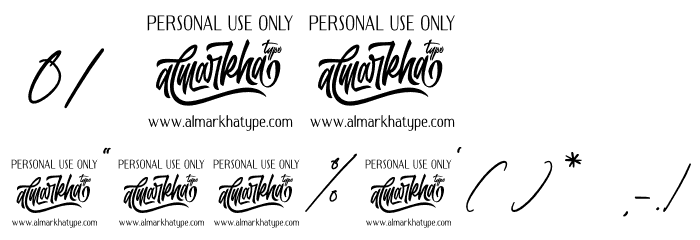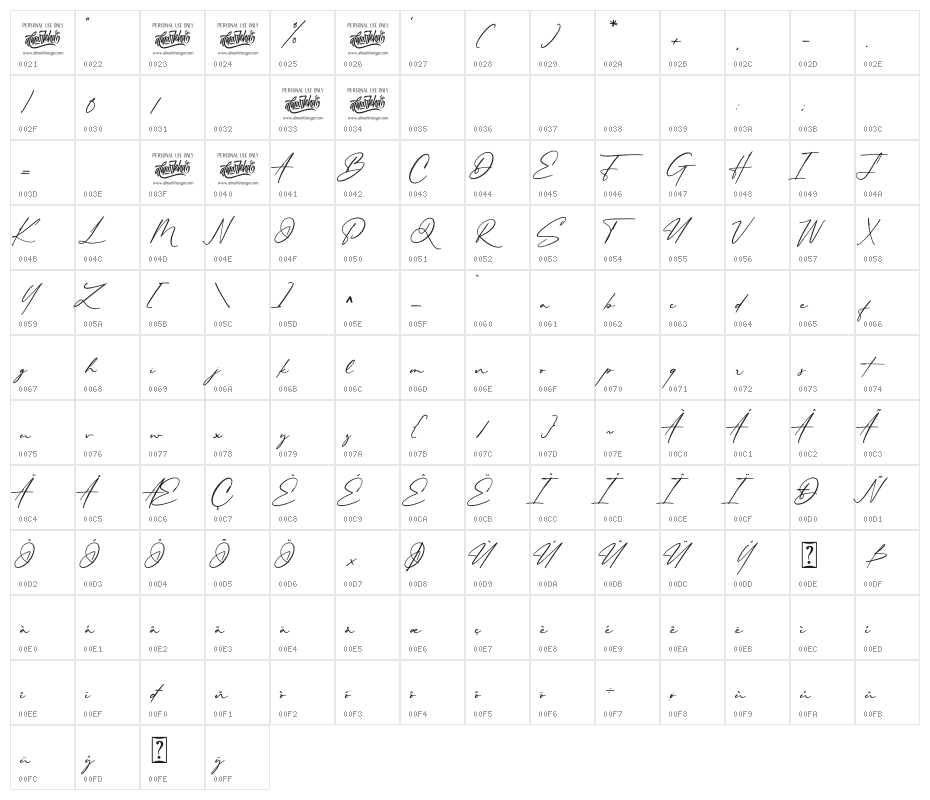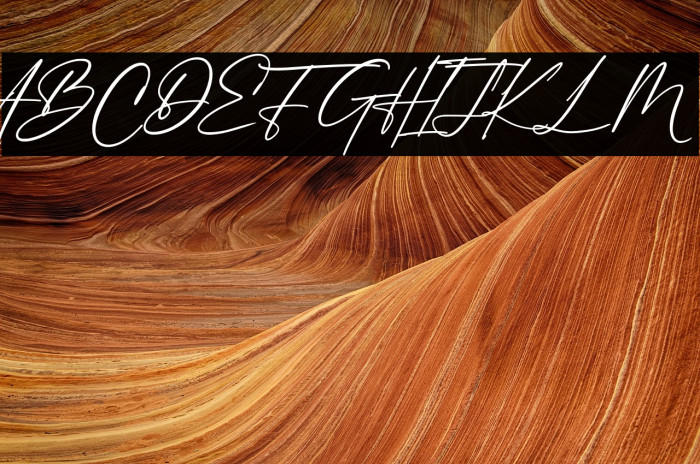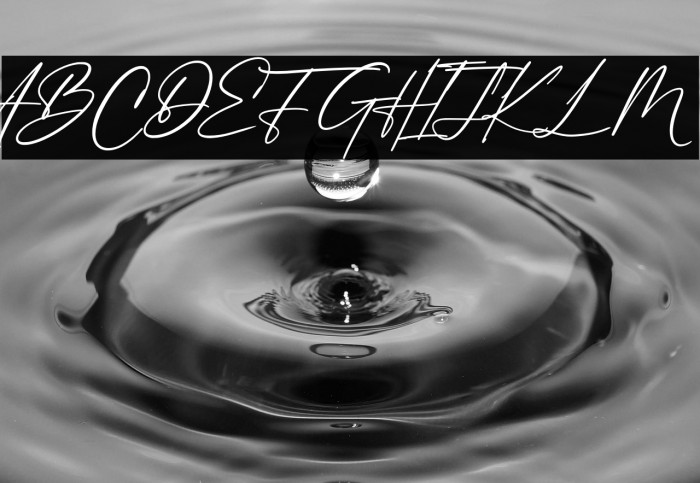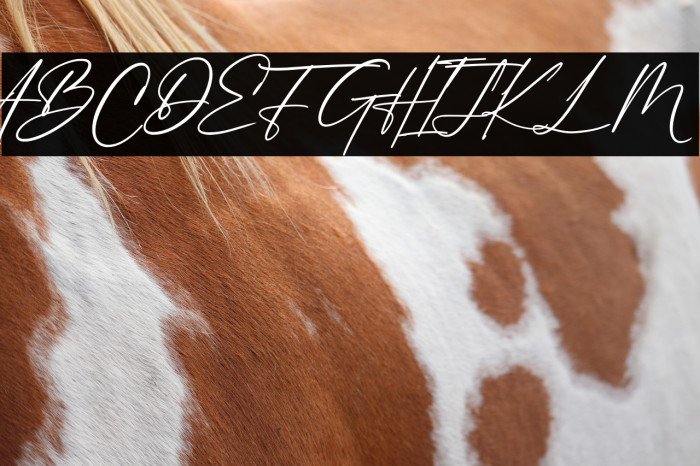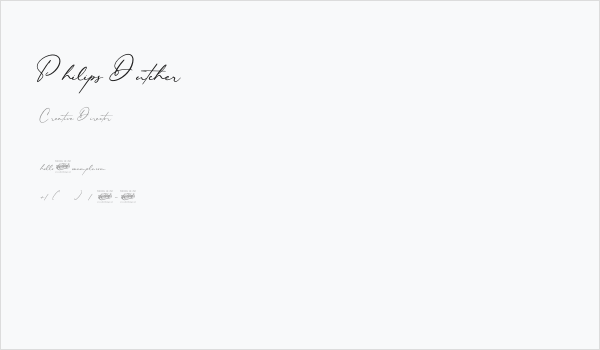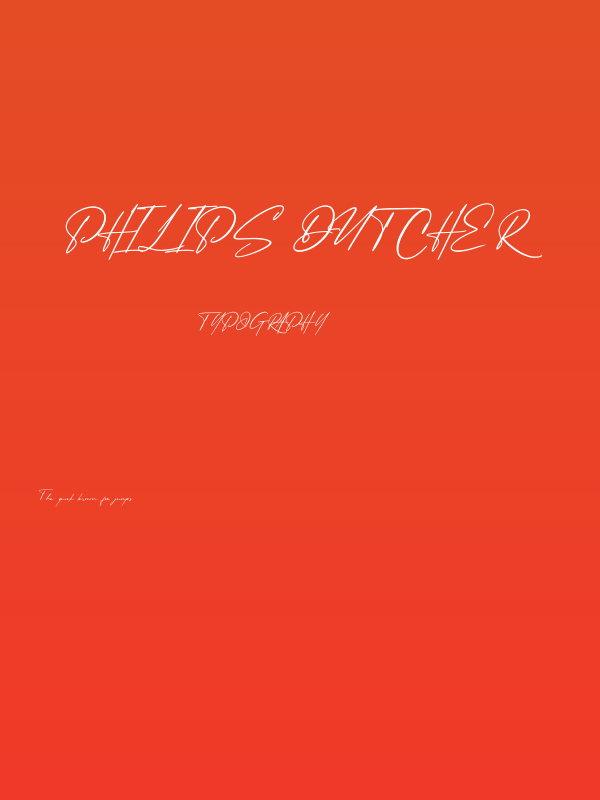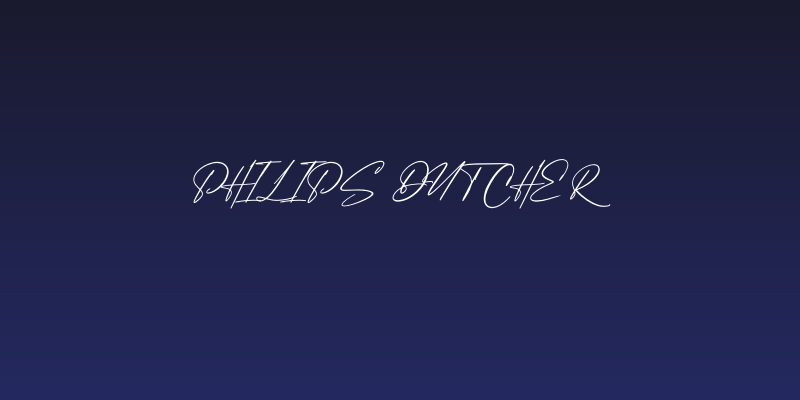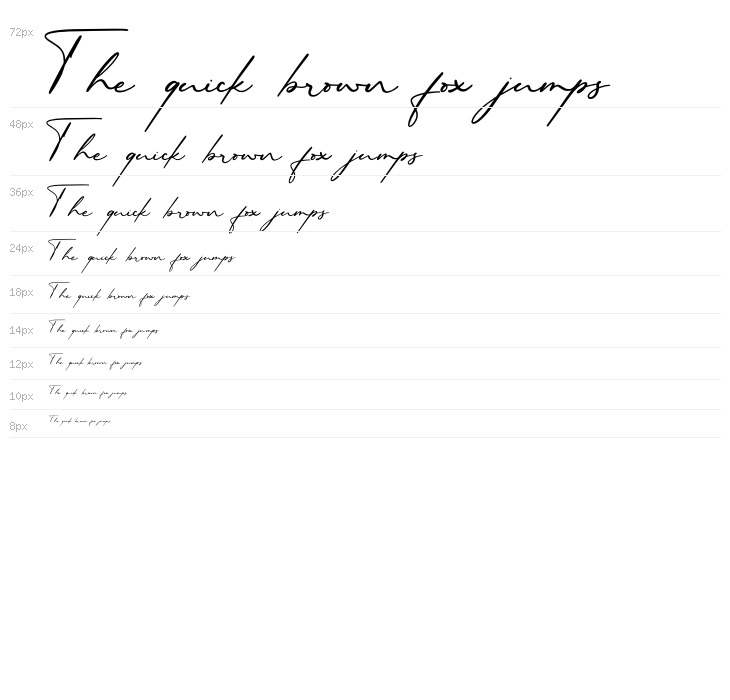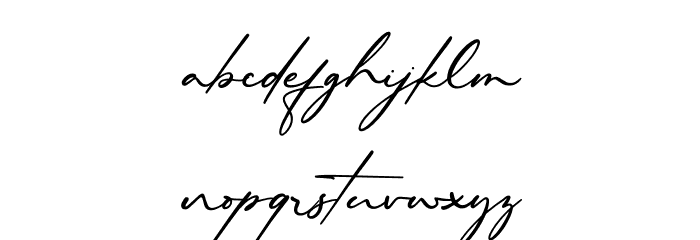
Philips Dutcher Font
Philips Dutcher Description
This font features an elegant, flowing script style that mimics natural handwriting with a sophisticated flair. The uppercase letters are tall and slightly slanted, with intricate loops and curves that add a touch of elegance. The lowercase letters maintain a consistent flow, creating a harmonious and connected appearance. The font includes numerals and a selection of special characters, all designed with the same graceful aesthetic. Its overall appearance is both stylish and legible, making it suitable for a variety of creative applications.